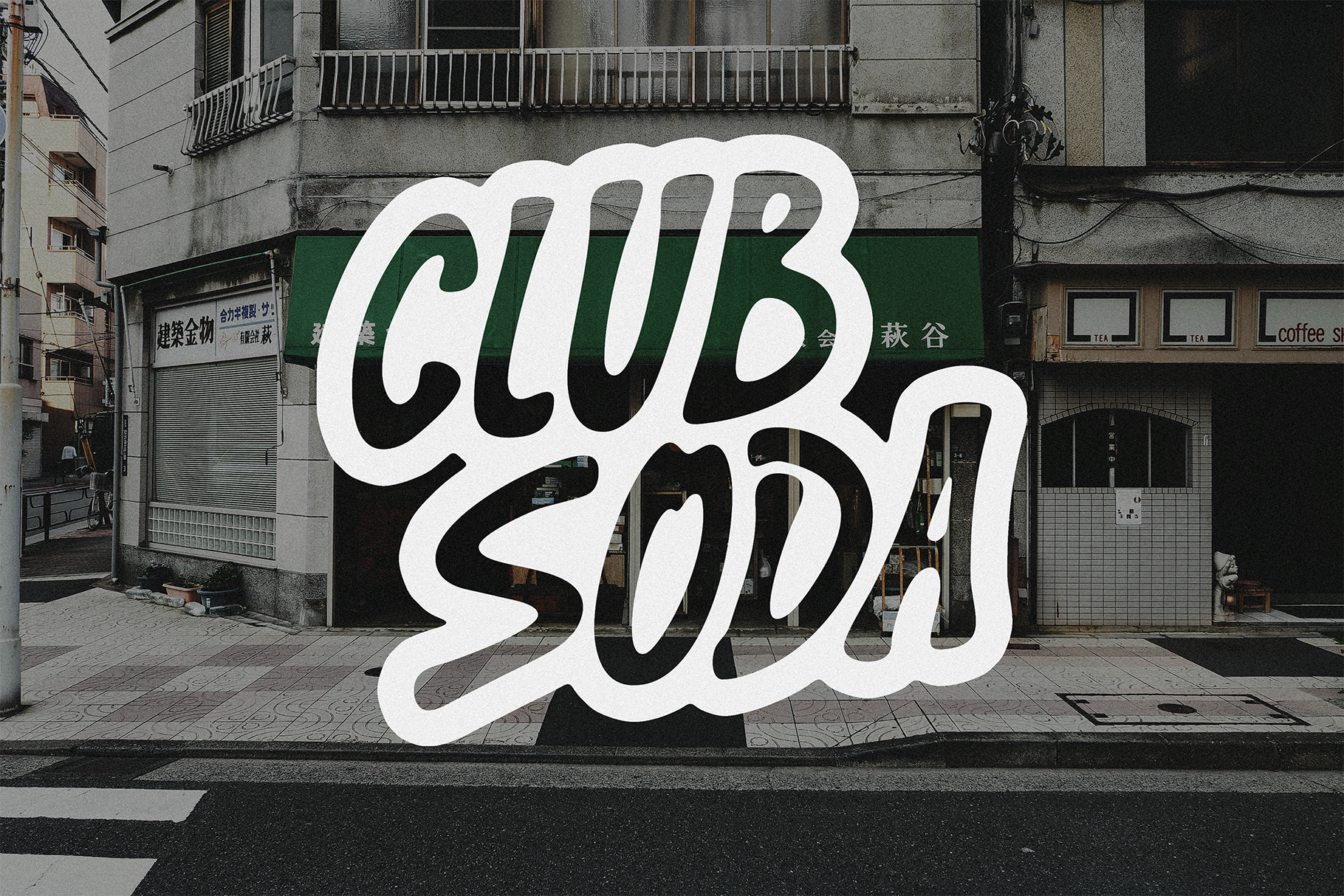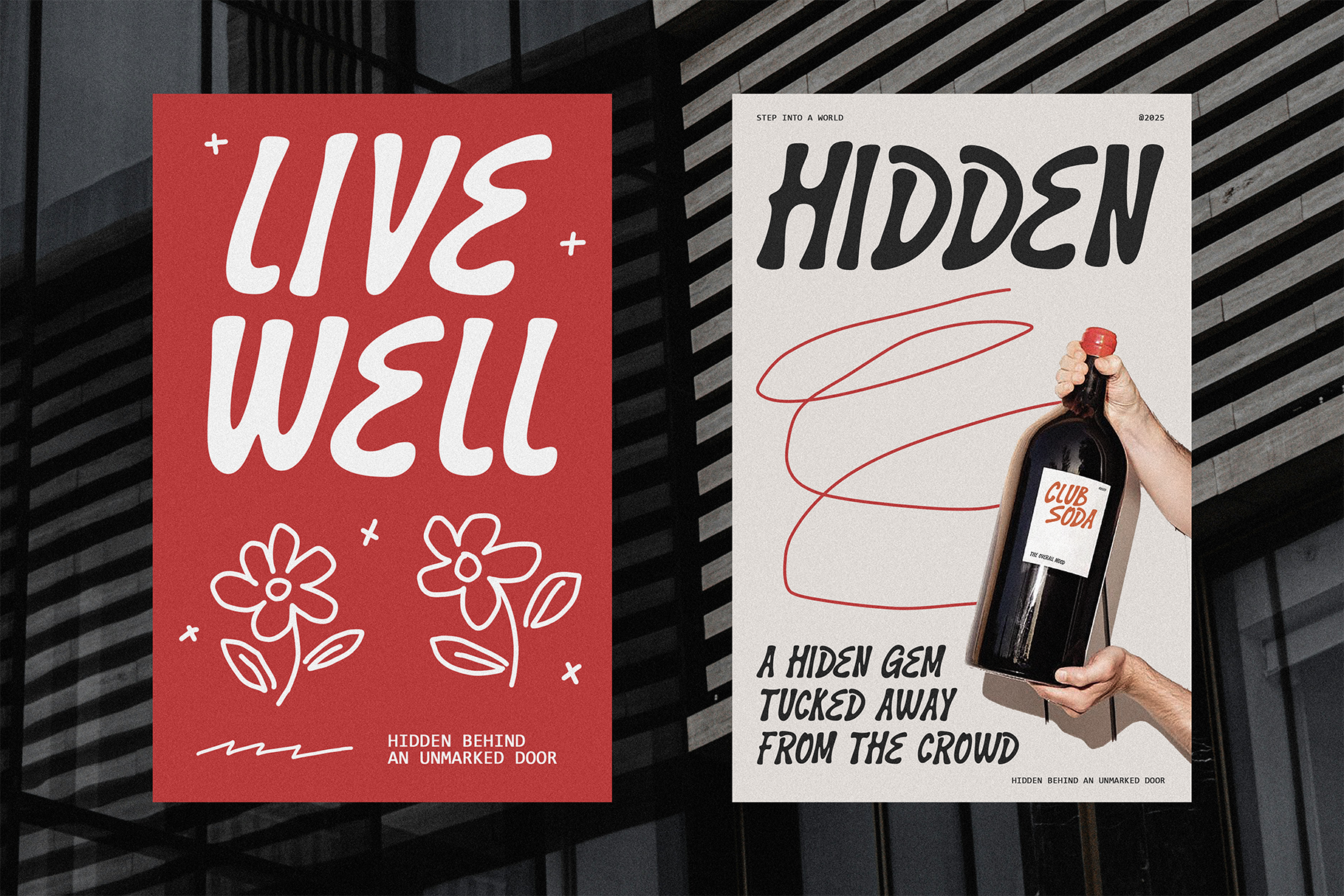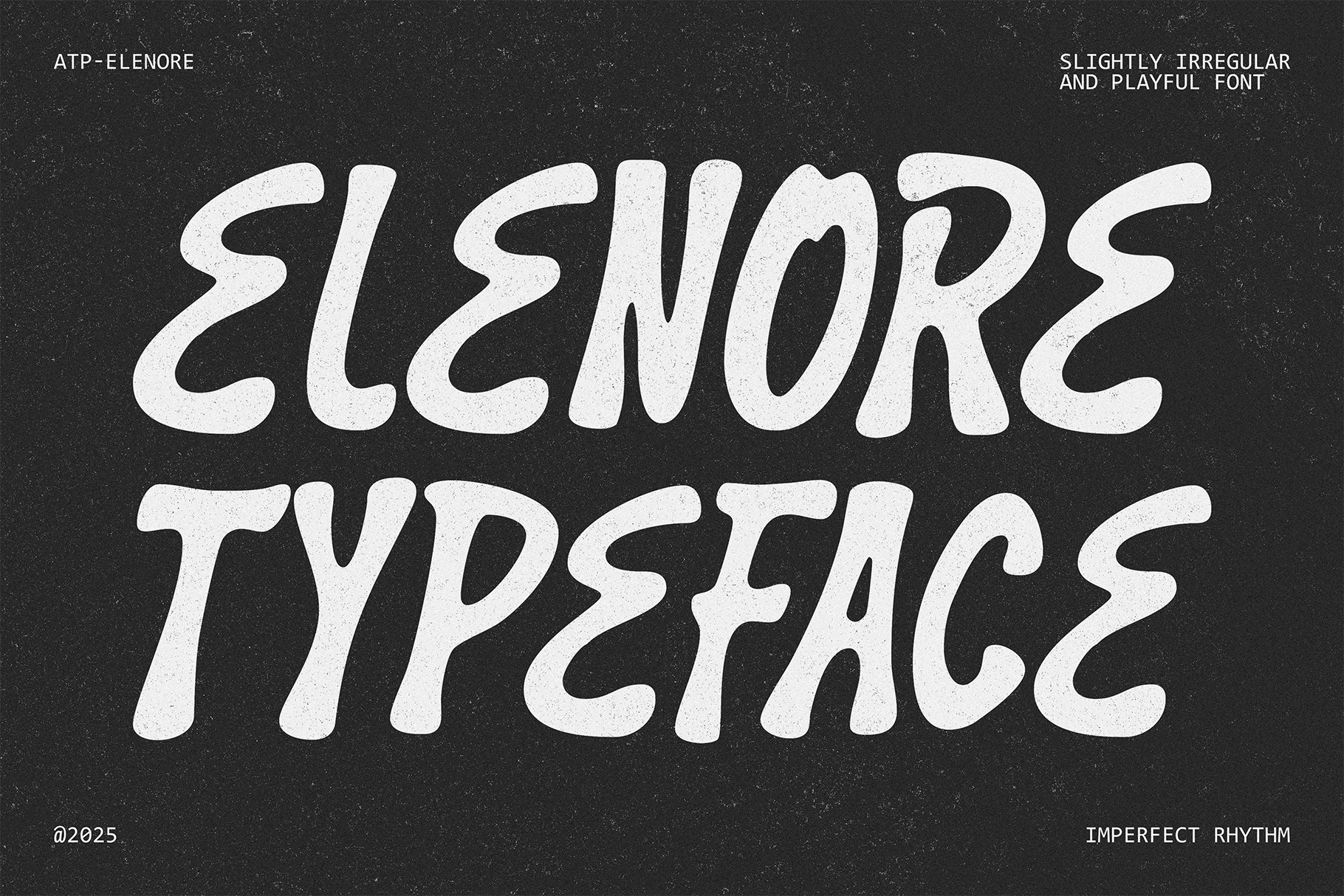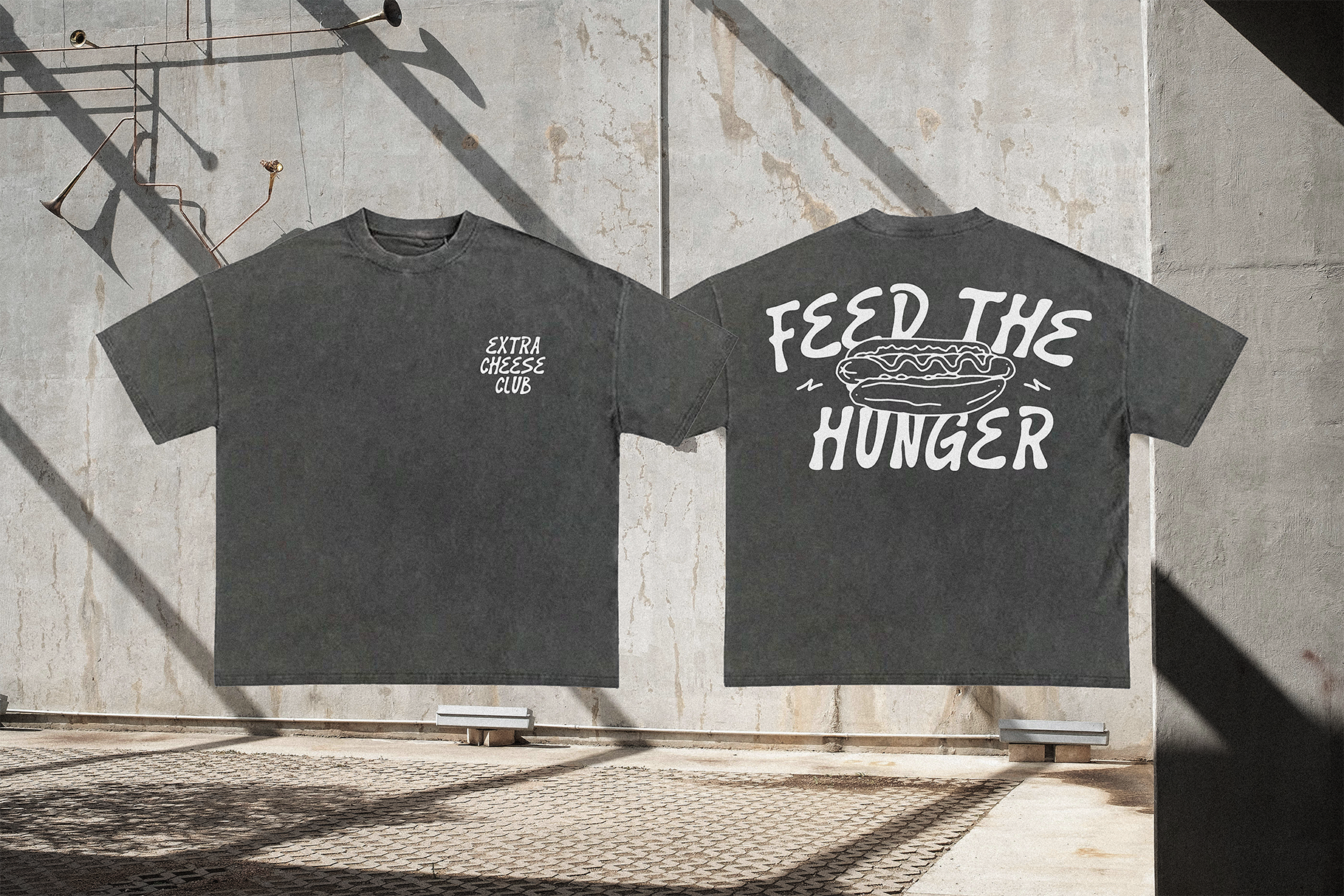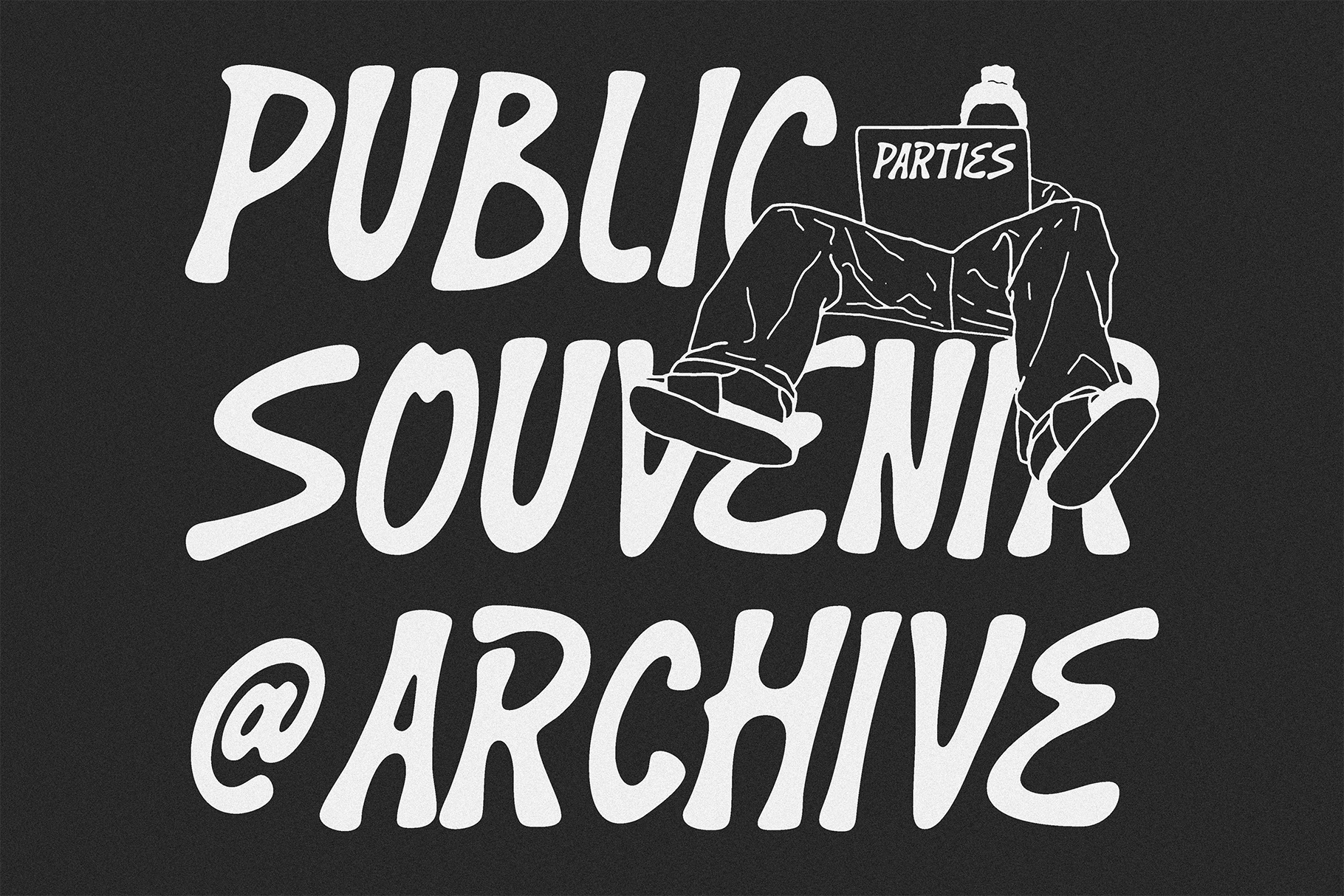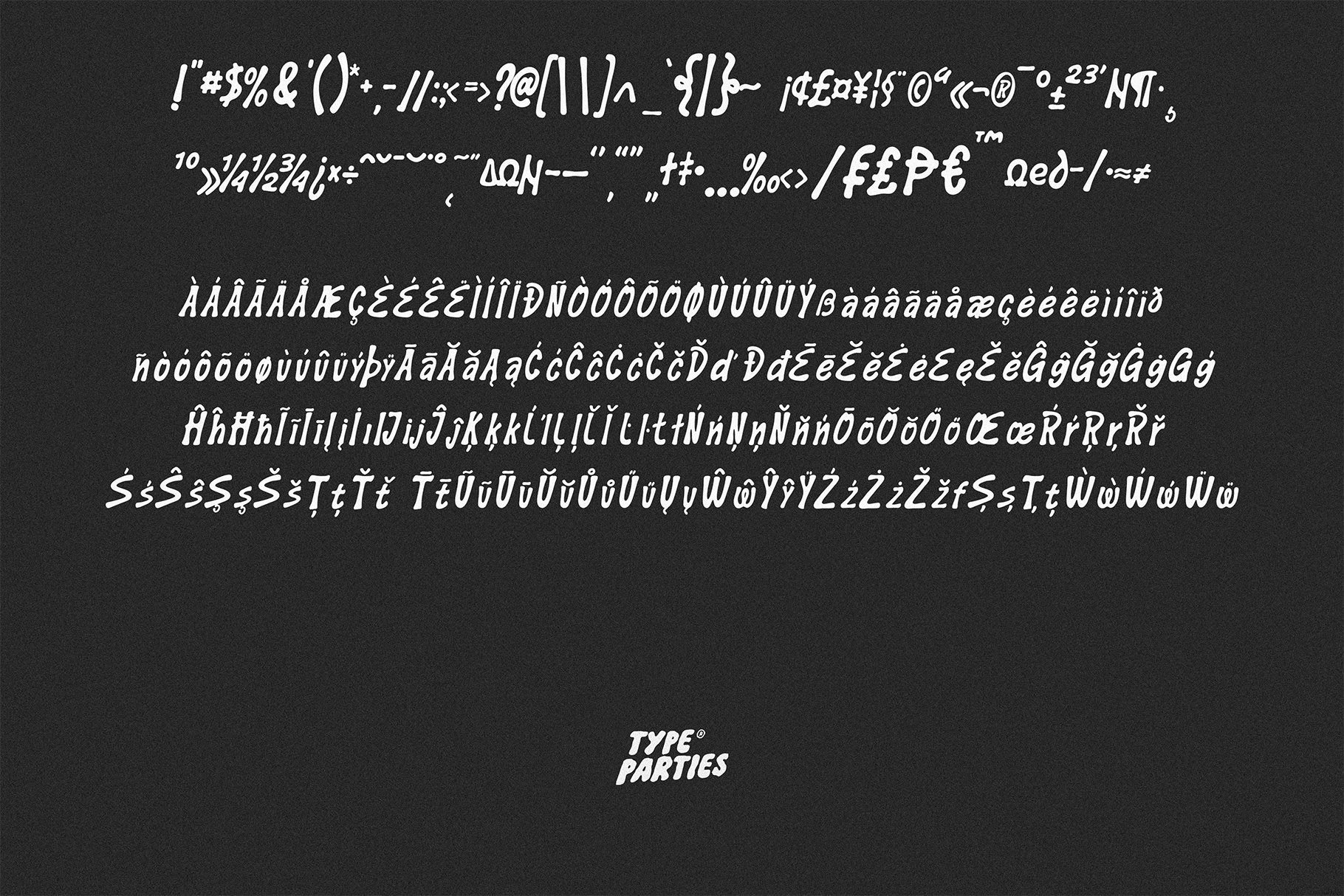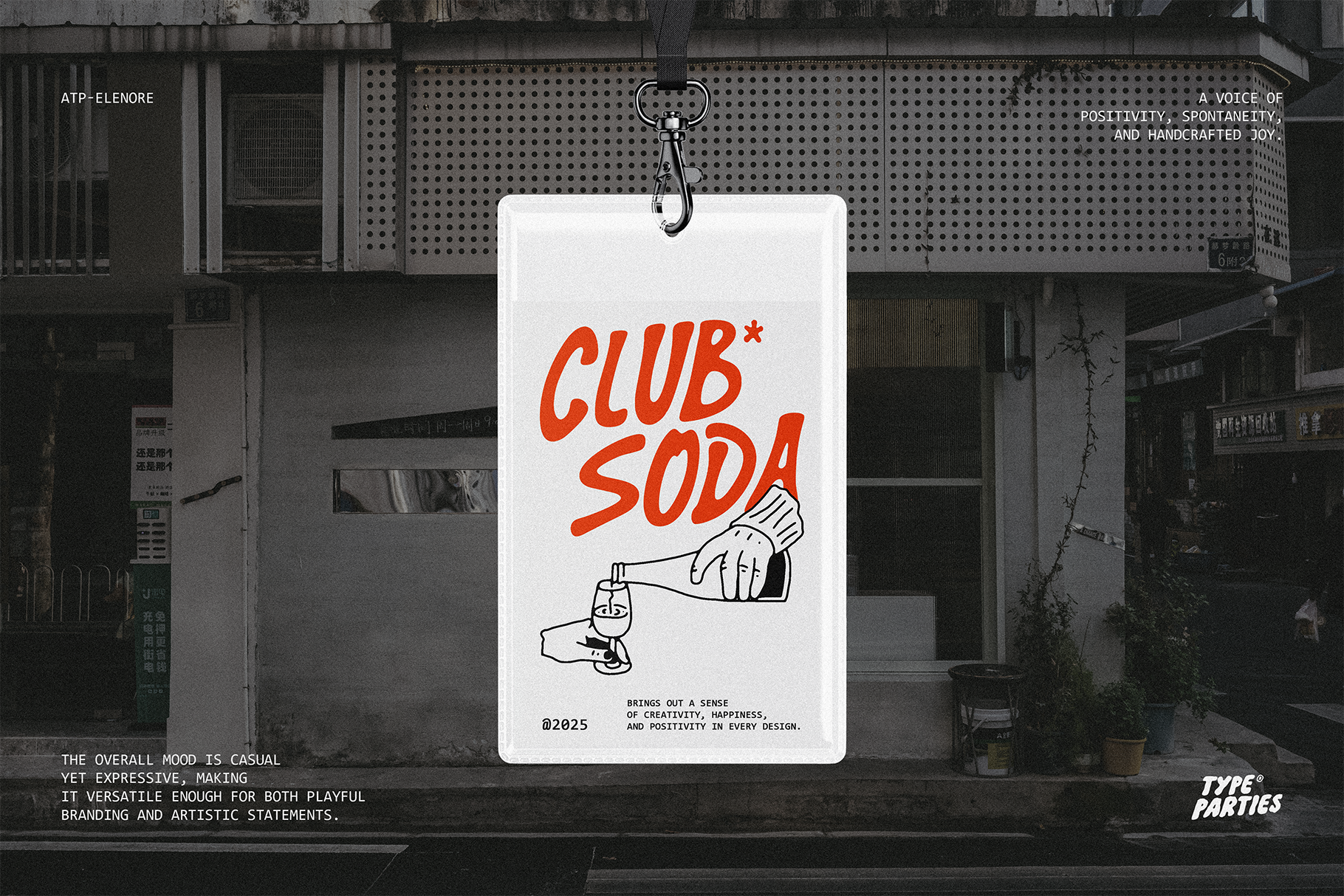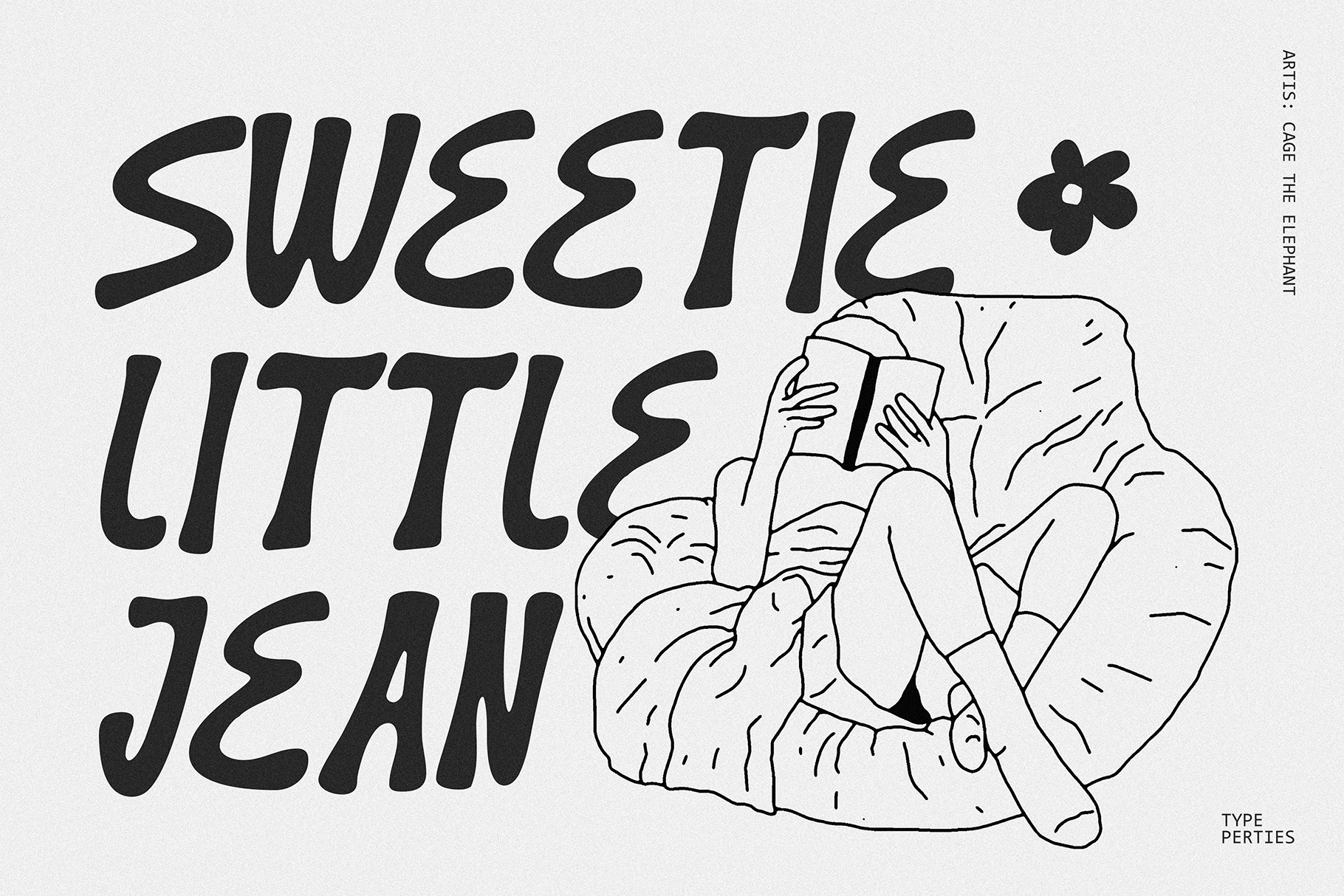
ATP-ELENORE FONT
a display typeface with a whimsical and cheerful personality. The slightly irregular strokes give it a natural, imperfect rhythm—like handwriting filled with joy and spontaneity. Its tall, narrow letterforms feel light and playful, while the subtle quirks in each character add authenticity and charm. The font captures an uplifting mood, making it perfect for designs that aim to feel friendly, fun, and approachable.
Ideal uses include playful branding, eco-friendly packaging, lifestyle blogs, greeting cards, children’s books, posters, and social media graphics. Its handcrafted energy makes headlines feel more personal, while the organic flow of the letters adds warmth to any creative project. Whether paired with illustrations, pastel tones, or bold color palettes, this font brings out a sense of creativity, happiness, and positivity in every design.